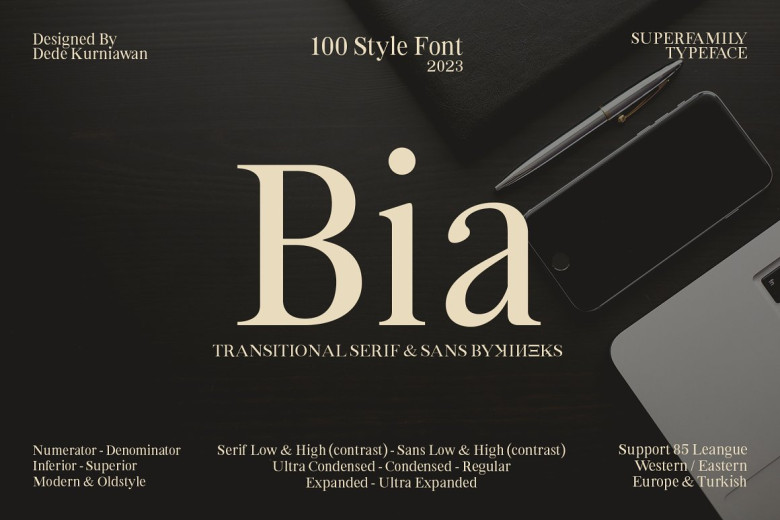
Bia Font
Bia Superfamily comprises 100 font styles designed in transitional serif style. Compatible with 85 Western/Eastern European languages as well as Turkish, Bia Superfamily is perfect for global use and offers features such as numerator/denominator figures along with inferior, modern and old-style figures for optimal use.
Bia Superfamily comes in four forms: serif Low and High (Contrast), sans-serif, ultra-condensed (also referred to as condensed), regular (also referred to as expanded), and ultra-expanded.
Bia Superfamily font styles are versatile enough to meet the needs of various industries, including skincare, perfume, jewelry and stationary offices, newspapers, cover books web design signs airport hotels wedding invitations text.
Bia Superfamily font is ideal for designers seeking to create designs with luxurious, elegant elements. Its professional yet chic aesthetic helps it to stand out in any design.